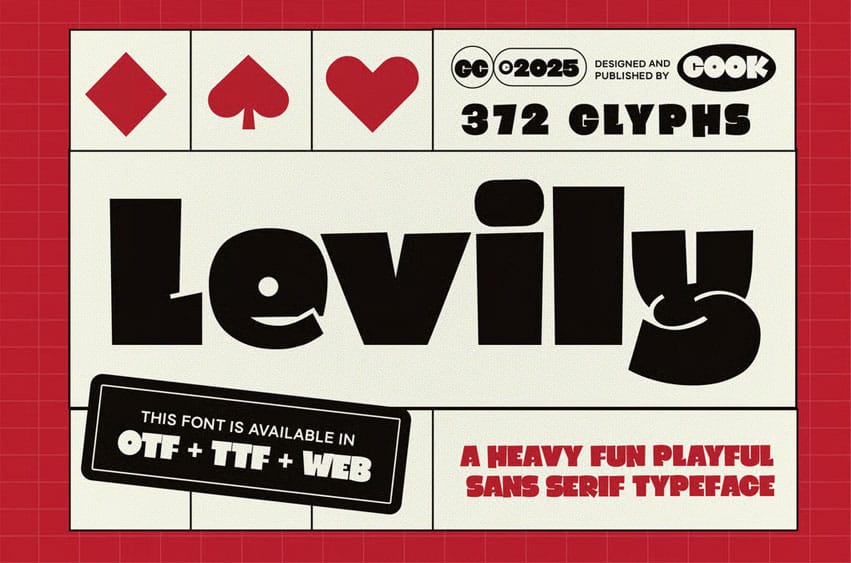
Levily Font
Levily Font is a bold sans-serif font with playful personality and distinctive letterforms. Perfect for posters, headlines, branding, packaging, and any design aiming to convey a fun yet expressive tone.
It is perfect for headlines, logotypes, magazines, packaging, quotes, movies, games, cover albums, book covers, and flyers, it’s a perfect solution for creating eye-catching designs that stand out in any context.